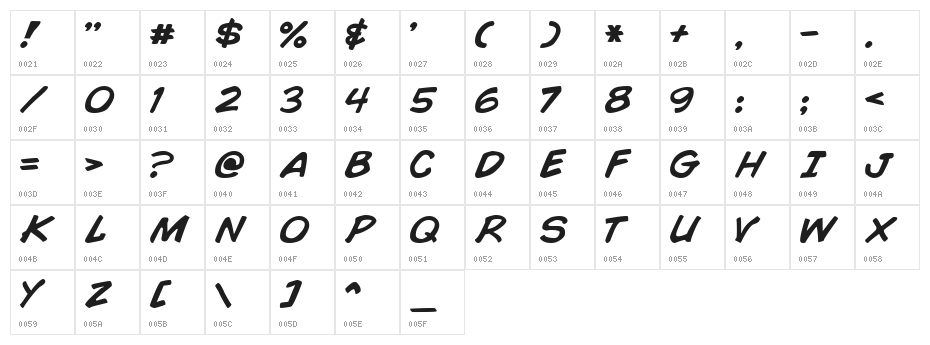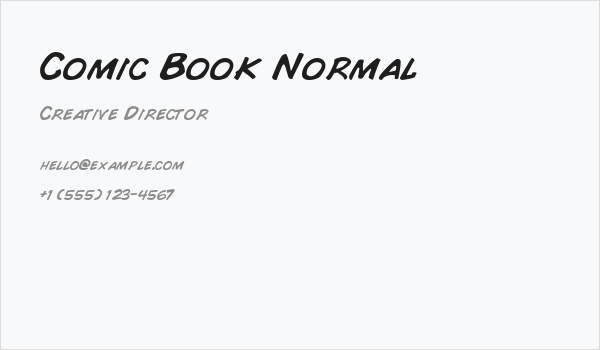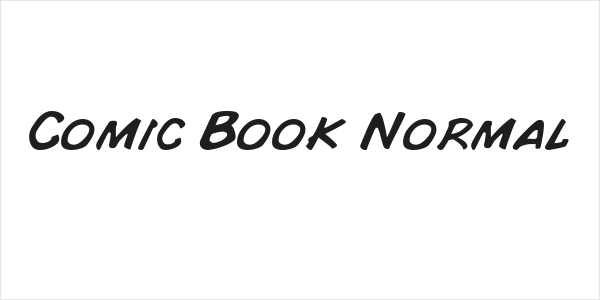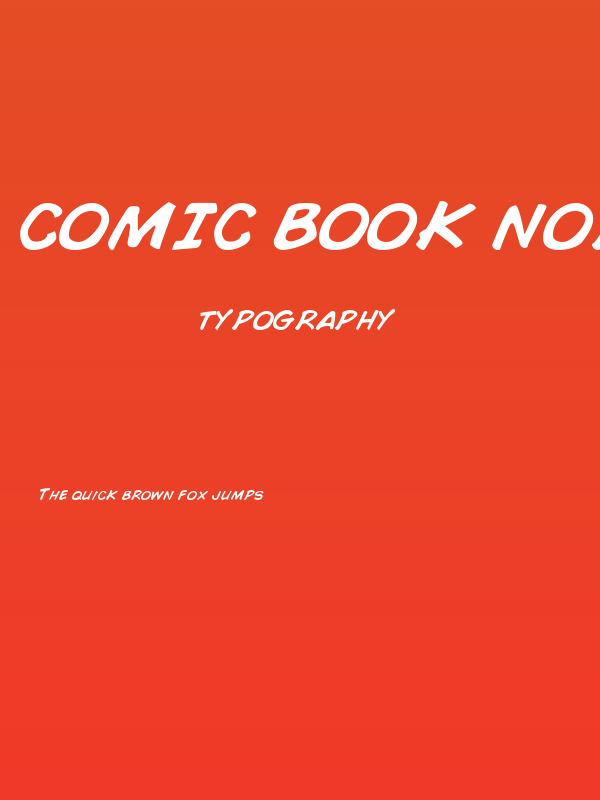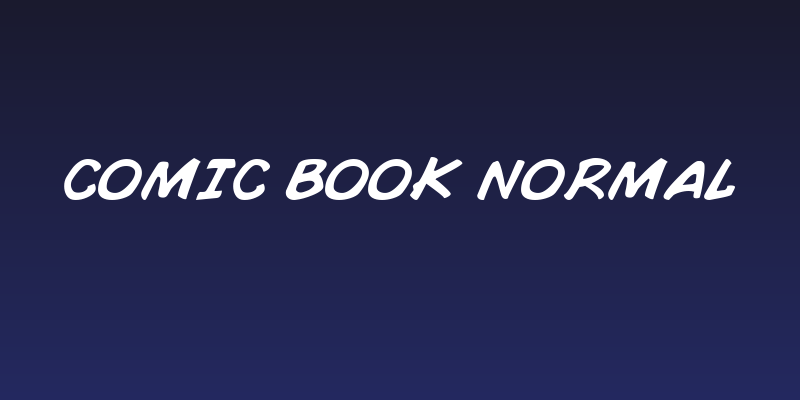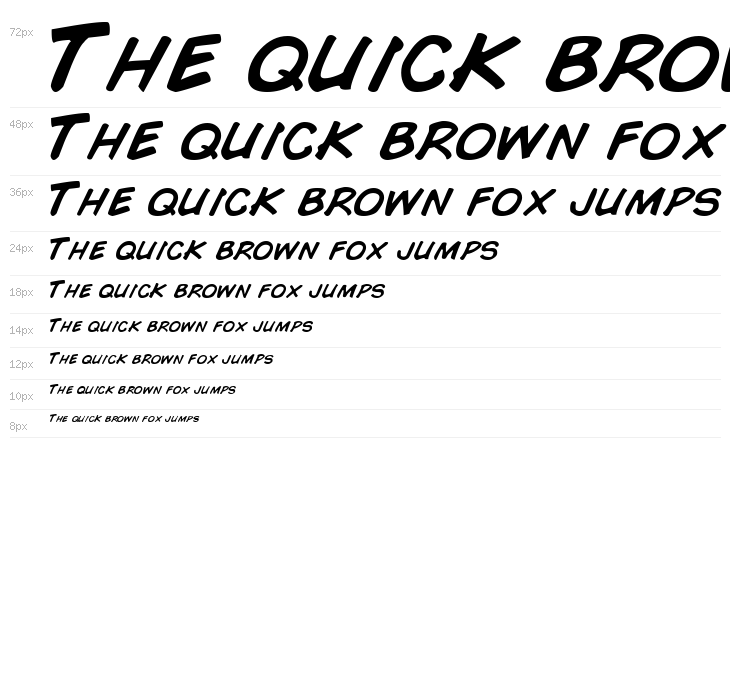
Comic Book Normal Font
Comic Book Normal Description
This font features a playful and dynamic style, reminiscent of classic comic book lettering. The characters are bold and slightly slanted, giving a sense of motion and energy. The uppercase and lowercase letters maintain a consistent style, with rounded edges and a slight tilt to the right. The numerals are equally bold, ensuring they stand out clearly. Special characters are included, matching the overall energetic and informal aesthetic. This font is designed to capture attention and convey a sense of fun and excitement.
| Overall Style | Playful, Energetic |
| Proposed Projects | Ideal for comic books, graphic novels, children's books, posters, and playful branding. |